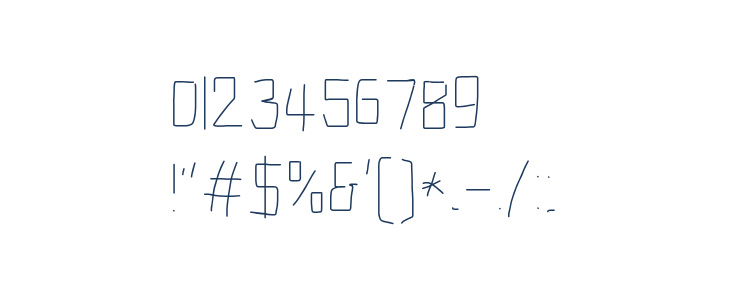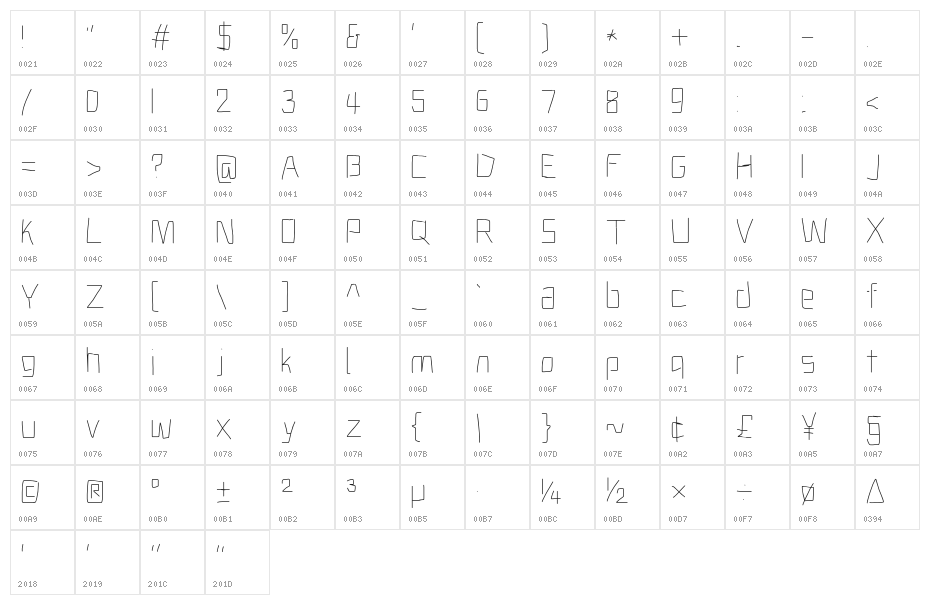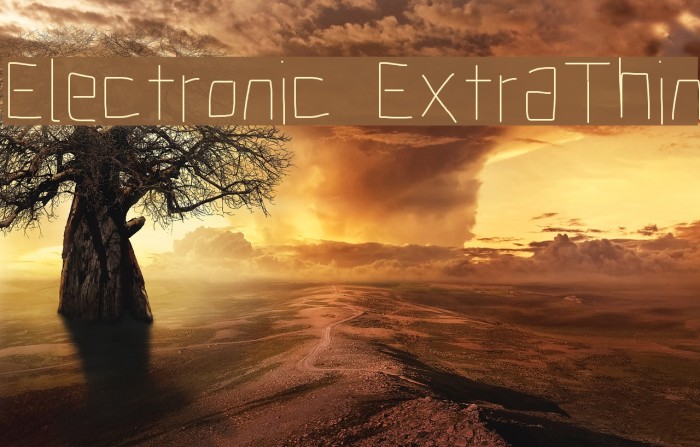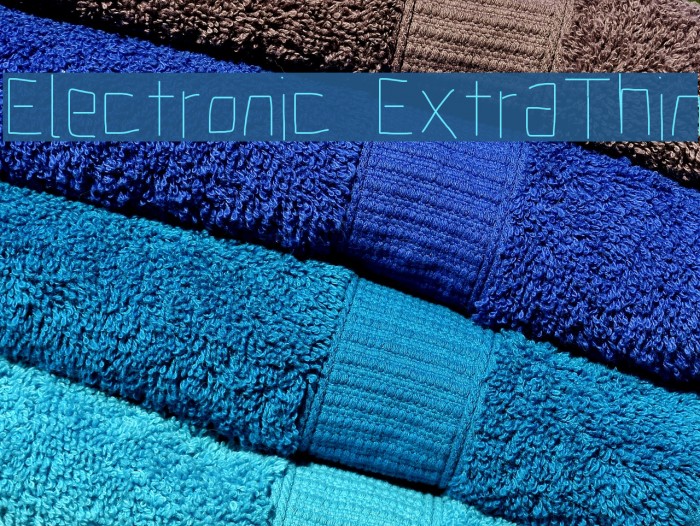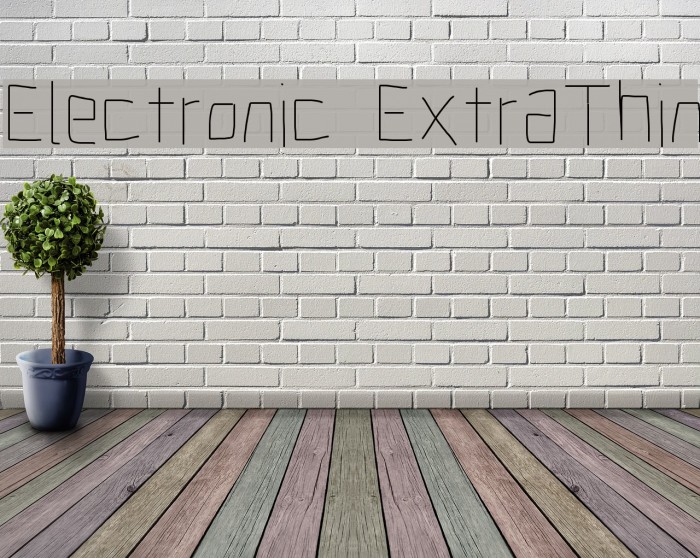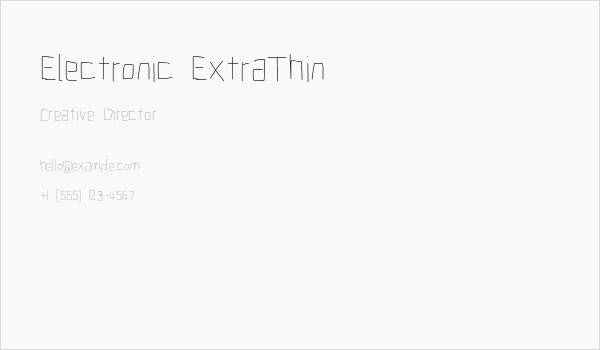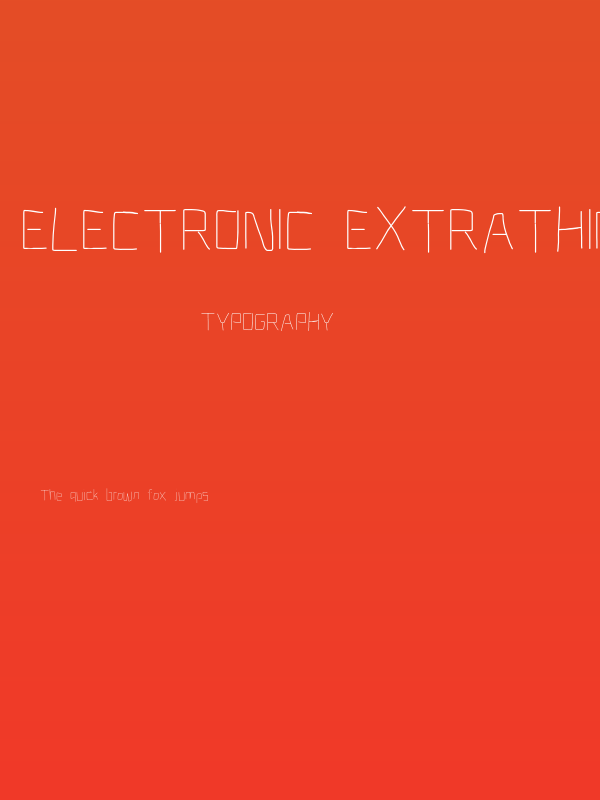
Electronic ExtraThin Font
Electronic ExtraThin Description
This font features a distinct, ultra-thin line style that gives it a modern and futuristic appearance. The characters are composed of straight lines and sharp angles, creating a geometric and electronic aesthetic. The uppercase and lowercase letters maintain a consistent height, contributing to a uniform look. The numerals and special characters follow the same design principles, ensuring cohesion across all glyphs. Its minimalistic design makes it suitable for digital and tech-related projects, where a sleek and contemporary feel is desired.
Use CaseHeadlines, Logos, Digital interfaces
Proposed ProjectsIdeal for tech branding, digital interfaces, futuristic posters, and minimalist graphic design.